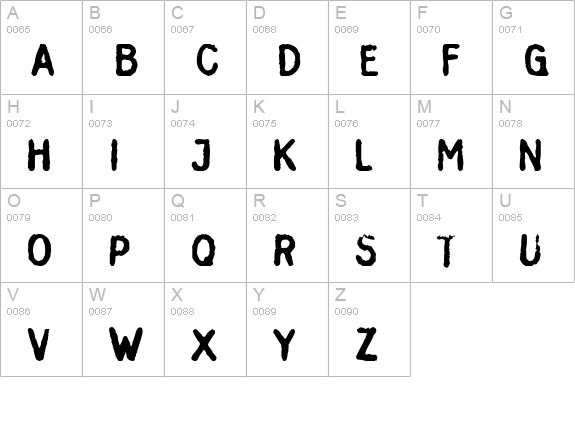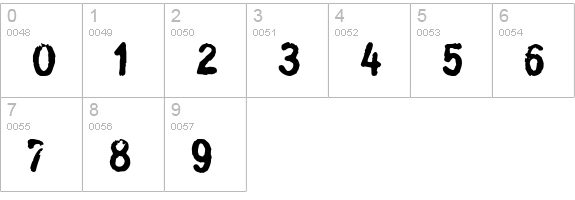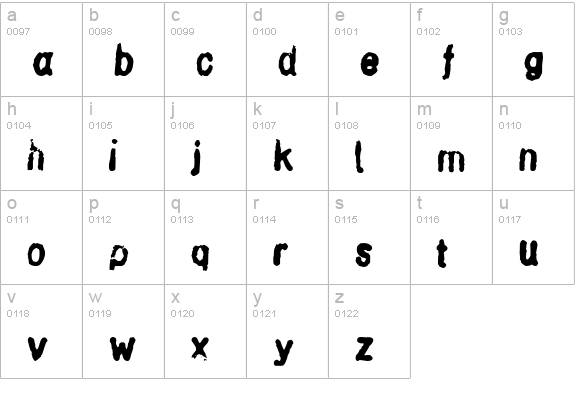
Inkbleed Font Details
Introducing Inkbleed font, a unique and captivating typeface that will leave a lasting impression on any design project. With its bold and expressive strokes, Inkbleed font exudes a sense of creativity and originality that is sure to make your designs stand out from the crowd. What sets Inkbleed font apart is not only its stunning visual appeal, but also the fact that it is completely free. Yes, you heard that right! You can download this exceptional font without spending a dime. Inkbleed font is freely available for download at FontsMarket.com, a trusted source for high-quality fonts. Whether you're working on a logo, branding materials, posters, or any other design project, Inkbleed font will add a touch of elegance and sophistication. Its versatile nature allows it to be used in a wide range of contexts, from modern and edgy designs to more traditional and classic layouts. Inkbleed font is designed with meticulous attention to detail, ensuring that each character is beautifully crafted and visually pleasing. Its flowing lines and sharp edges create a perfect balance, making it legible and easy to read, even at smaller sizes. What's more, Inkbleed font offers a wide range of glyphs and special characters, providing you with endless possibilities to unleash your creativity. With its extensive language support, you can effectively communicate your message to a global audience. So why wait? Don't miss out on this incredible opportunity to enhance your designs with the mesmerizing charm of Inkbleed font. Download it for free at FontsMarket.com and let your creativity run wild with this exceptional typeface.